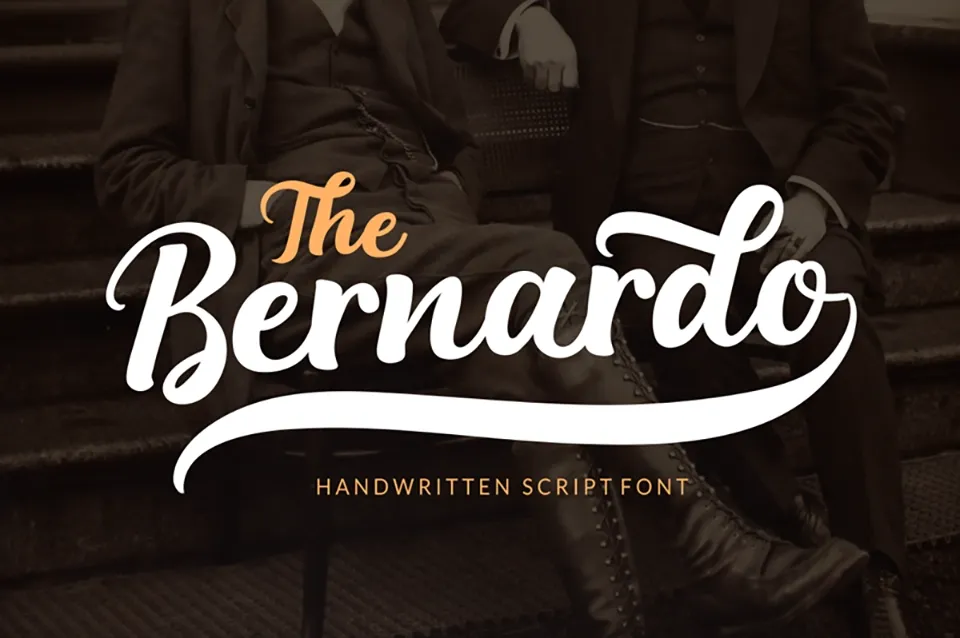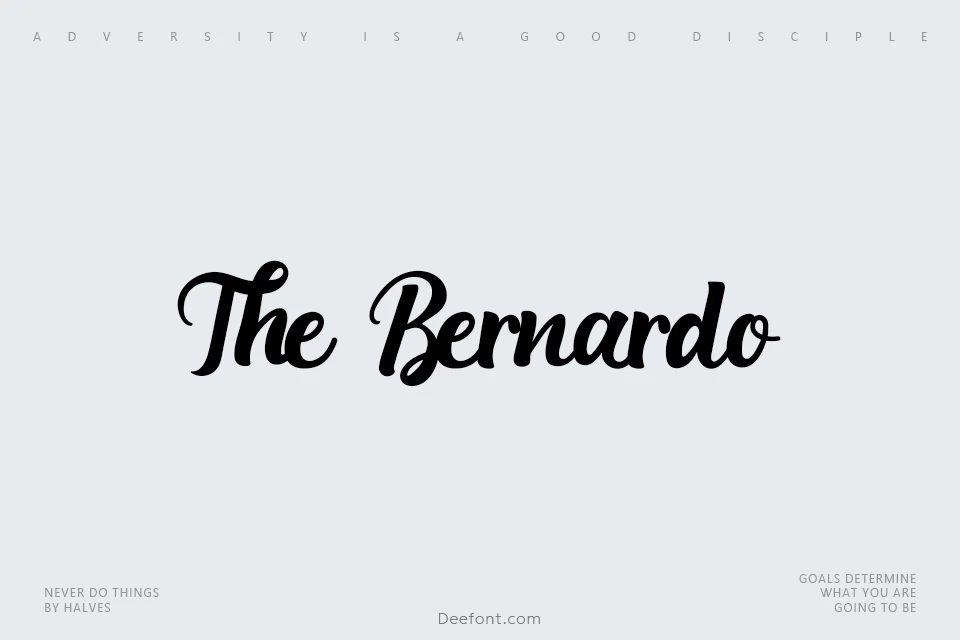
The Bernardo Font
The Bernardo Font is a gorgeous and flowing handwritten script font, crafted to give your headlines and logotype projects a stylish touch. This font reads as strong, confident, and dynamic, adding nostalgic character to your designs. It is PUA encoded, making it easy to access all glyphs and swashes for versatile creative possibilities.